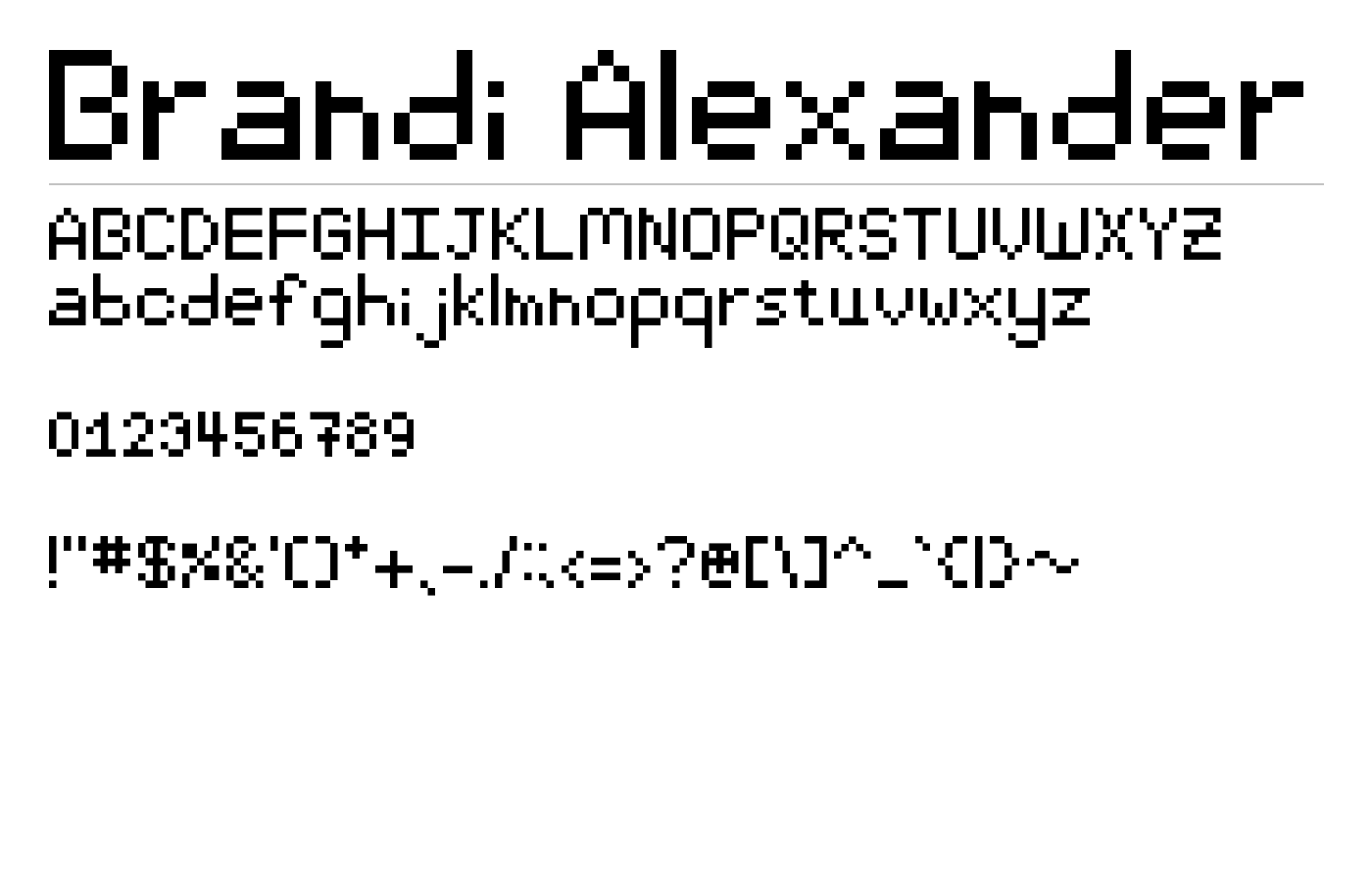
Brandi Alexander is a pixelated, monospaced sans serif font with a blocky, digital appearance reminiscent of early computer text and retro video games. Its consistent stroke weight and square-shaped characters give it a technical and nostalgic feel, making it ideal for designs that want to evoke a vintage tech or gaming aesthetic. This font works best for titles, logos, and projects that benefit from a distinctive, retro digital vibe.
Brandi Alexander Font
About Brandi Alexander Font
| Font family | Brandi Alexander Font |
| Designer | zwendel977 |